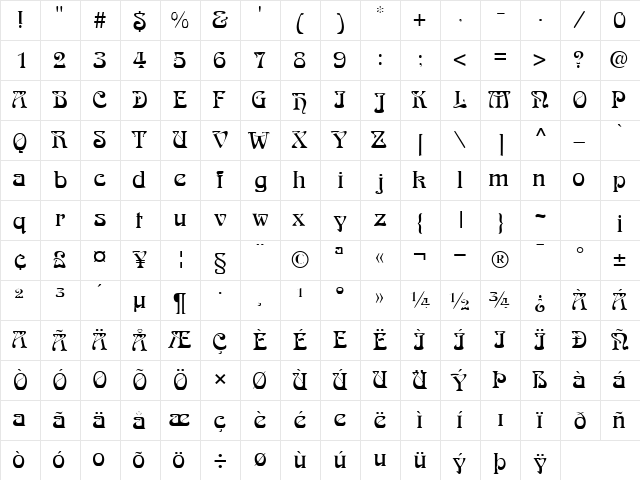
ArtDecoLightSSK Regular
Design Context for ArtDecoLightSSK Typeface
ArtDecoLightSSK is a composed and adaptable typeface that performs quietly and consistently across a wide range of design contexts. Its slender proportions lend an understated elegance to any composition.